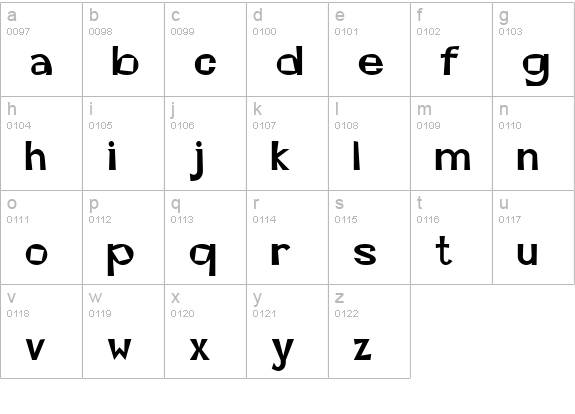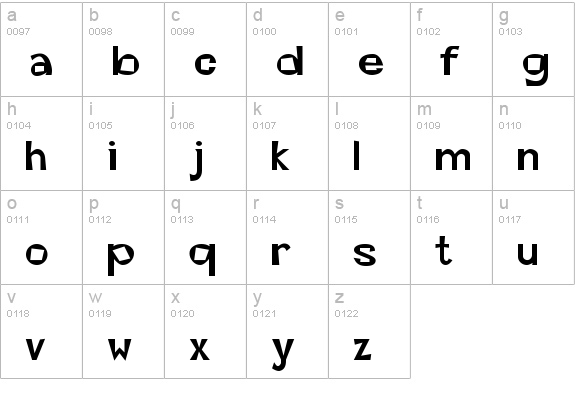
Magoo Normal is the standard, neutral variant in the Magoo typeface family \xE2\x80\x94 well suited to general body text, paragraphs, and standard typographic work.
Magoo Normal font is a modern and stylish typeface that exudes elegance and sophistication. With its clean lines and balanced proportions, this font is perfect for a wide range of design projects. Whether you are creating a logo, a website, or a branding campaign, Magoo Normal font will add a touch of professionalism and refinement to your work. One of the best things about Magoo Normal font is that it is completely free to download. You can easily access this font at FontsMarket.com, a trusted source for high-quality fonts. By offering Magoo Normal font for free, the creators of this font are making it accessible to designers and creatives of all levels, without any financial constraints. With its versatility and timeless appeal, Magoo Normal font can be used in various contexts and applications. Its legibility and readability make it suitable for both print and digital designs. Whether you are designing a poster, a flyer, a magazine layout, or a website, Magoo Normal font will make your text stand out with its refined and sophisticated look. The characters in Magoo Normal font are meticulously crafted, ensuring smooth curves and clean edges. This attention to detail adds a touch of professionalism to your designs, making them look polished and well-executed. The font also offers a wide range of weights and styles, allowing you to experiment and create unique and eye-catching compositions. In conclusion, Magoo Normal font is a beautiful and versatile typeface that is freely available to download at FontsMarket.com. Its elegant and timeless design makes it a perfect choice for a variety of design projects. Whether you are a professional designer or a beginner, Magoo Normal font will elevate your work and give it a touch of sophistication. So why wait? Download Magoo Normal font now and unleash your creativity.